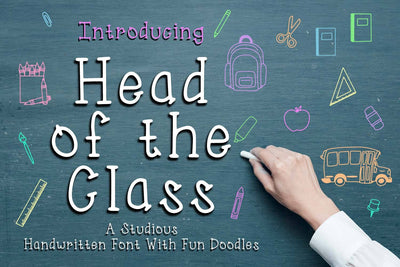
Back to School
This fun font is perfect for Back to School. You can make shirts, signs, gifts, really anything you want! Most Importantly these are fun for Teachers, Staff, Students and even Family!
As always our fonts and typefaces work great for logos, header, Titles, Prints & other Creative process possibilities.
Perfect for crafters and die cutting machines.